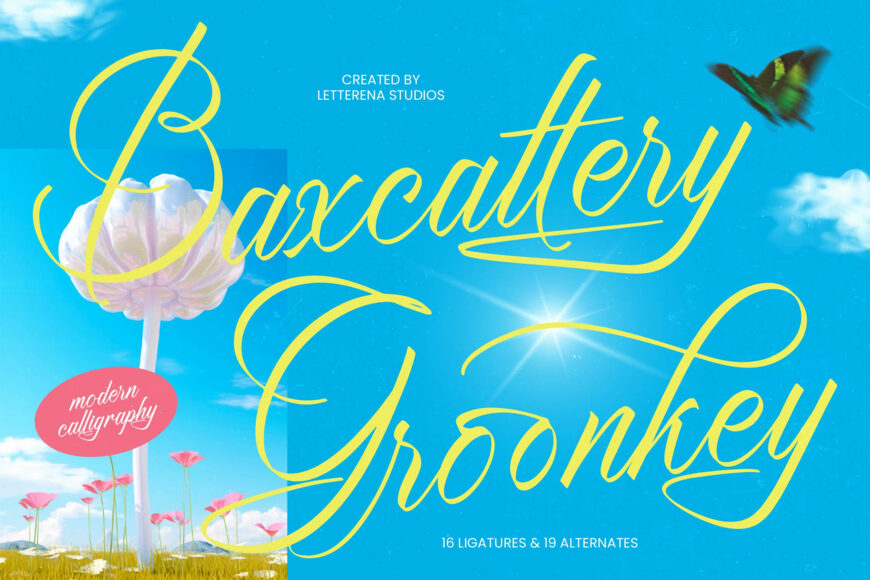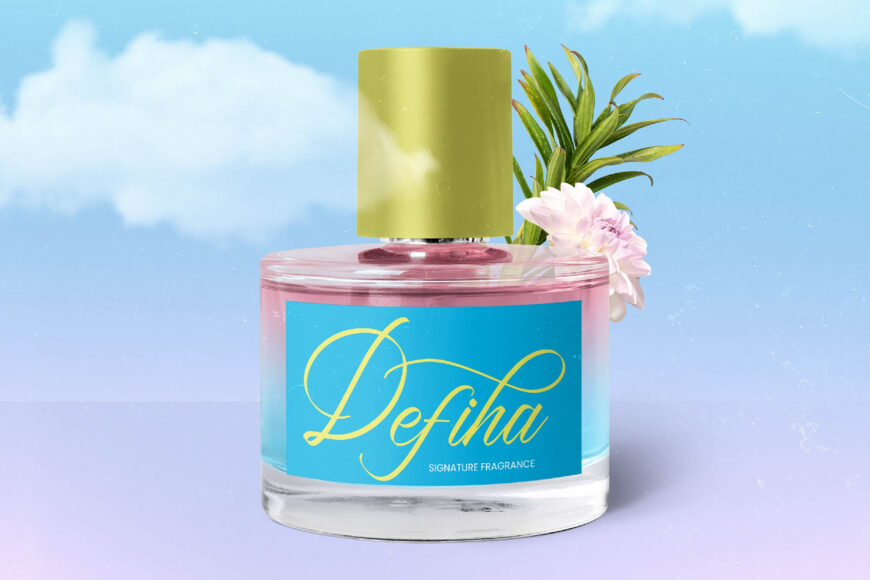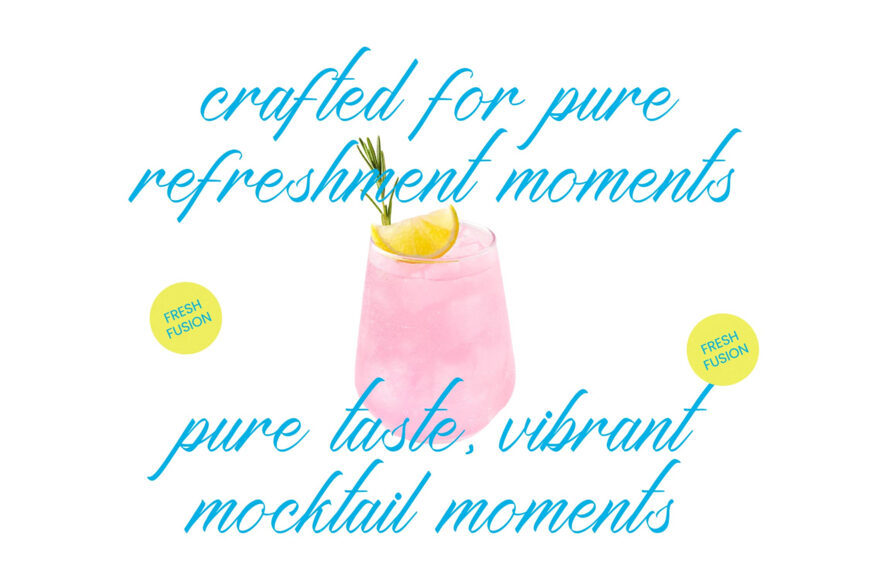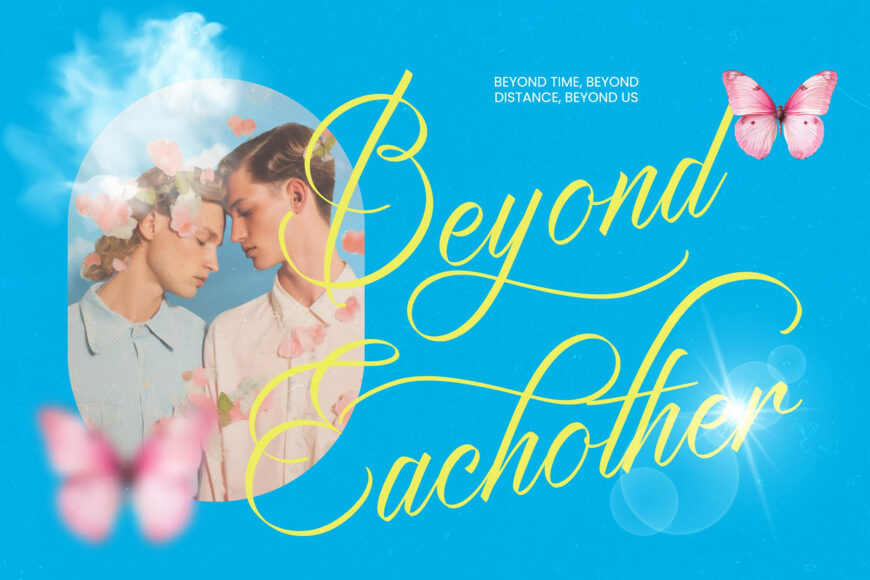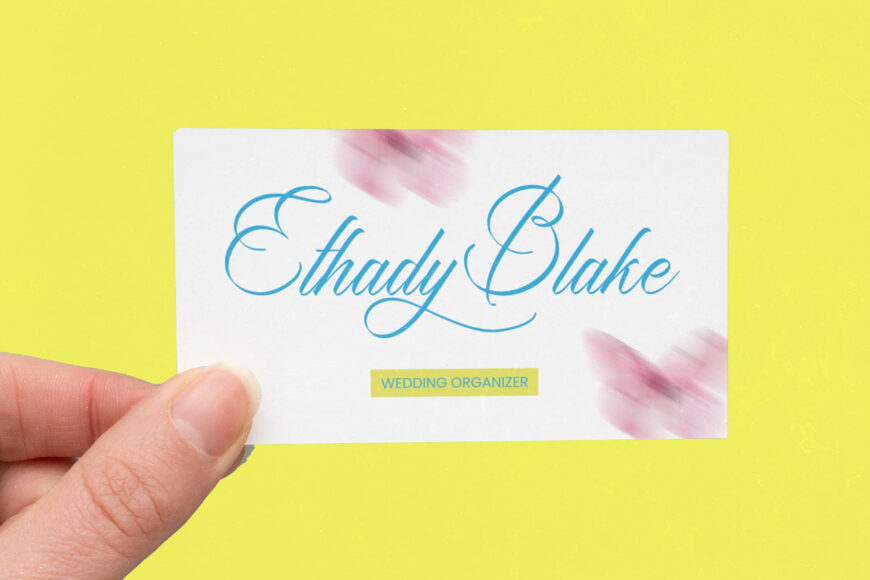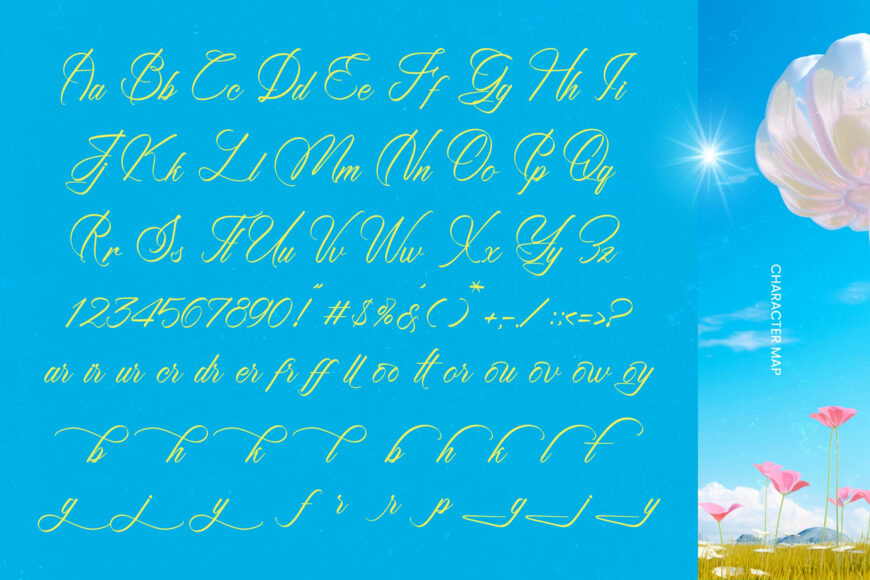
Baxcattery Groonkey Font
Bring your creative work to life with Baxcattery Groonkey, a modern calligraphy font that blends fluid strokes, graceful flourishes, and handcrafted charm. Created by Letterena Studios, it combines contemporary script with classic elegance, making every word feel polished and memorable.
Ideal for luxury branding, premium packaging, wedding invitations, editorial designs, boutique identities, and upscale social content, this versatile typeface adds a refined personal touch to logos and visual storytelling. Its natural flow, dynamic alternates, 16 ligatures, and 19 stylistic alternates offer flexible customization.